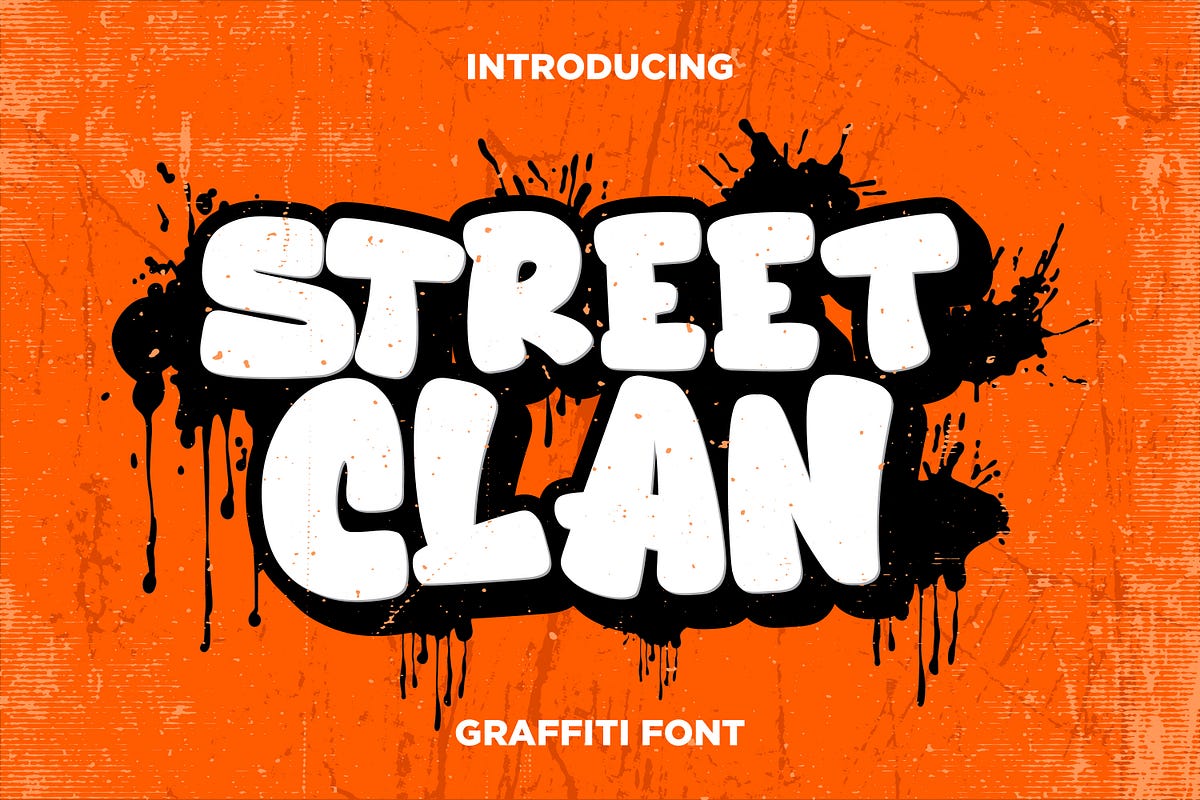
Street Clan Font
Street Clan Font - Don’t miss out, download it now for free here! Elevate your designs with this mesmerizing display font. Nesta amostra de fonte, você poderá visualizar todos os caracteres incluídos. Its modern yet whimsical aesthetic makes it a true standout in the world of typography. It has a modern yet whimsical style and it will undoubtedly immerse your designs into a magical world. Street clan is an incredibly cool and unique display font. The characters are heavily stylized, giving a sense of movement and energy. Street clan is an incredibly cool and unique. Essa display fonte foi criada por memetxsaputra. 🌟 introducing street clan font!
Elevate your designs with this mesmerizing display font. Nesta amostra de fonte, você poderá visualizar todos os caracteres incluídos. 🌟 introducing street clan font! Street clan is an incredibly cool and unique display font. Its modern yet whimsical aesthetic makes it a true standout in the world of typography. Street clan is an incredibly cool and unique. It has a modern yet whimsical style and it will undoubtedly immerse your designs into a magical world. Essa display fonte foi criada por memetxsaputra. The characters are heavily stylized, giving a sense of movement and energy. Street clan font is an outstanding display typeface created by the talented designer memetxsaputra.
Street clan is an incredibly cool and unique display font. About the font and designer. Street clan font is an outstanding display typeface created by the talented designer memetxsaputra. Essa display fonte foi criada por memetxsaputra. Elevate your designs with this mesmerizing display font. Abaixo você encontrará o modelo de fonte para a street clan fonte. It has a modern yet whimsical style and it will undoubtedly immerse your designs into a magical world. The font is perfect for. Don’t miss out, download it now for free here! Its modern yet whimsical aesthetic makes it a true standout in the world of typography.
The characters are heavily stylized, giving a sense of movement and energy. About the font and designer. Street clan is an incredibly cool and unique. It has a modern yet whimsical style and it will undoubtedly immerse your designs into a magical world. Elevate your designs with this mesmerizing display font.
The font is perfect for. The characters are heavily stylized, giving a sense of movement and energy. Don’t miss out, download it now for free here! 🌟 introducing street clan font! Essa display fonte foi criada por memetxsaputra.
Essa display fonte foi criada por memetxsaputra. Nesta amostra de fonte, você poderá visualizar todos os caracteres incluídos. Don’t miss out, download it now for free here! Elevate your designs with this mesmerizing display font. Its modern yet whimsical aesthetic makes it a true standout in the world of typography.
The characters are heavily stylized, giving a sense of movement and energy. Nesta amostra de fonte, você poderá visualizar todos os caracteres incluídos. Don’t miss out, download it now for free here! Elevate your designs with this mesmerizing display font. Abaixo você encontrará o modelo de fonte para a street clan fonte.
🌟 introducing street clan font! Nesta amostra de fonte, você poderá visualizar todos os caracteres incluídos. Street clan is an incredibly cool and unique display font. Street clan is an incredibly cool and unique. It has a modern yet whimsical style and it will undoubtedly immerse your designs into a magical world.
Its modern yet whimsical aesthetic makes it a true standout in the world of typography. Don’t miss out, download it now for free here! Abaixo você encontrará o modelo de fonte para a street clan fonte. Elevate your designs with this mesmerizing display font. The characters are heavily stylized, giving a sense of movement and energy.
Street clan is an incredibly cool and unique display font. Elevate your designs with this mesmerizing display font. Abaixo você encontrará o modelo de fonte para a street clan fonte. The font is perfect for. Street clan is an incredibly cool and unique.
The characters are heavily stylized, giving a sense of movement and energy. Street clan font is an outstanding display typeface created by the talented designer memetxsaputra. Street clan is an incredibly cool and unique. Its modern yet whimsical aesthetic makes it a true standout in the world of typography. About the font and designer.
Essa display fonte foi criada por memetxsaputra. Don’t miss out, download it now for free here! 🌟 introducing street clan font! About the font and designer. Street clan is an incredibly cool and unique.
Street clan font is an outstanding display typeface created by the talented designer memetxsaputra. Nesta amostra de fonte, você poderá visualizar todos os caracteres incluídos. About the font and designer. It has a modern yet whimsical style and it will undoubtedly immerse your designs into a magical world. Street clan is an incredibly cool and unique.
Its Modern Yet Whimsical Aesthetic Makes It A True Standout In The World Of Typography.
The characters are heavily stylized, giving a sense of movement and energy. Nesta amostra de fonte, você poderá visualizar todos os caracteres incluídos. Elevate your designs with this mesmerizing display font.